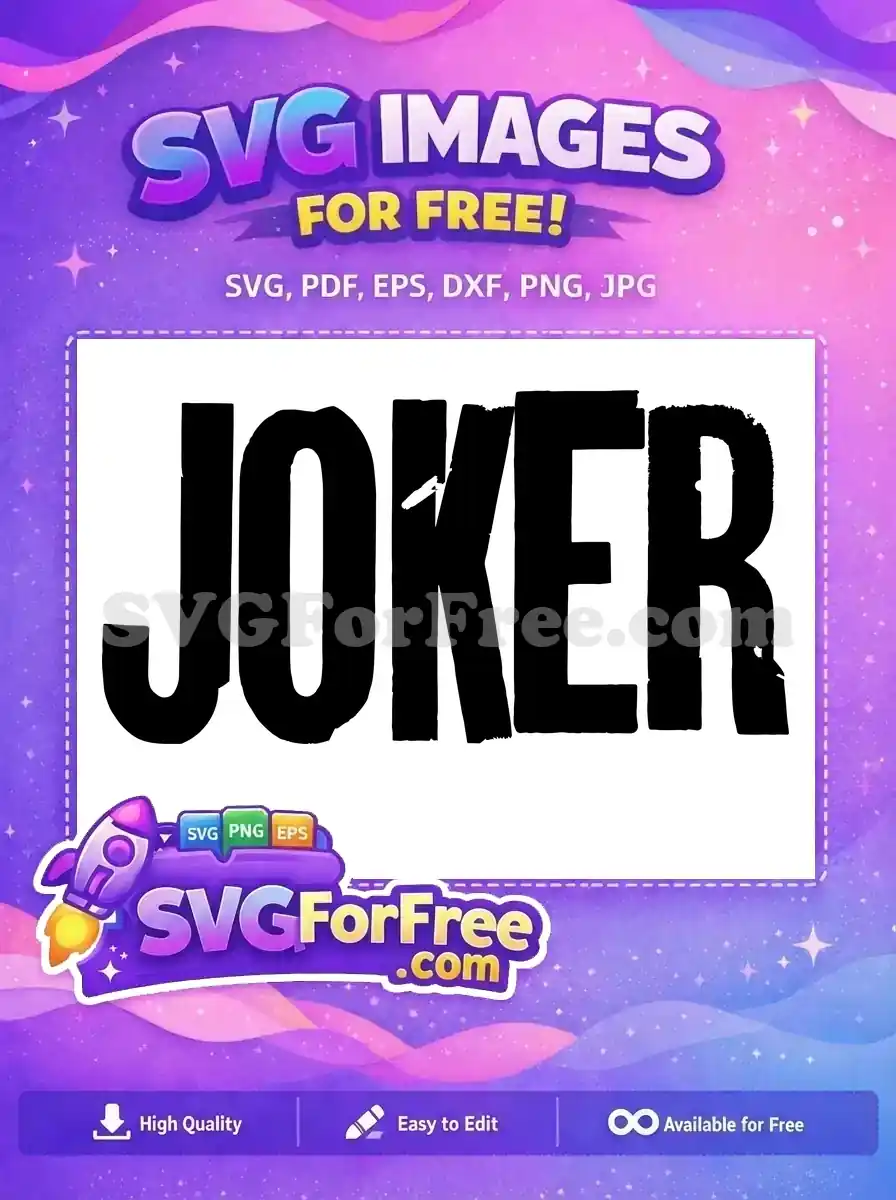
Free Distressed Bold Font Free Movie Logo Typeface Joker Free SVG – Instant Download
Bold, distressed ‘JOKER’ text in black, a strong typographic free vector for titles and headers.
Free Distressed Bold Font Free Movie Logo Typeface Joker Free SVG